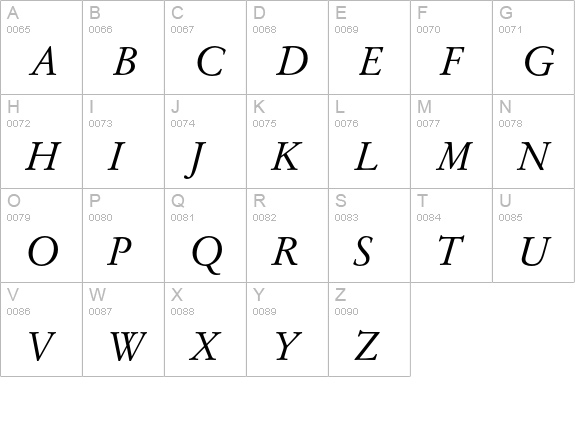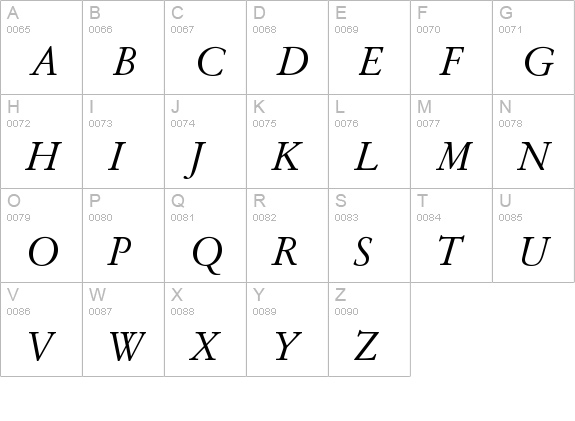
Stempel Garamond Italic Oldstyle Figures is a distinctive, italic variant in the Stempel typeface family \xE2\x80\x94 well suited to design and typography projects.
Stempel Garamond Italic Oldstyle Figures font exudes elegance and sophistication with its graceful, slanted letterforms and classic design. The italic style adds a touch of flair and style to any project, making it perfect for adding a touch of sophistication to your designs. The oldstyle figures give the font a timeless and traditional feel, making it a versatile choice for a wide range of applications. Best of all, this exquisite font is available for free download at FontsMarket.com. Whether you're designing a wedding invitation, creating a logo, or working on a branding project, Stempel Garamond Italic Oldstyle Figures font will elevate your design with its timeless beauty and classic charm. Download it today and add a touch of elegance to your next project.